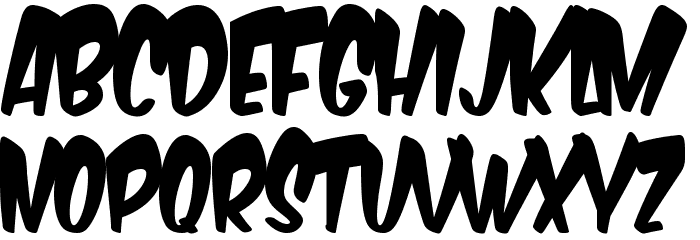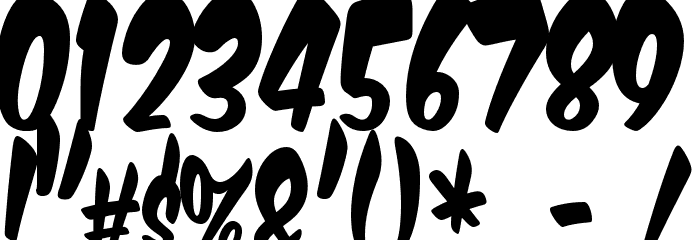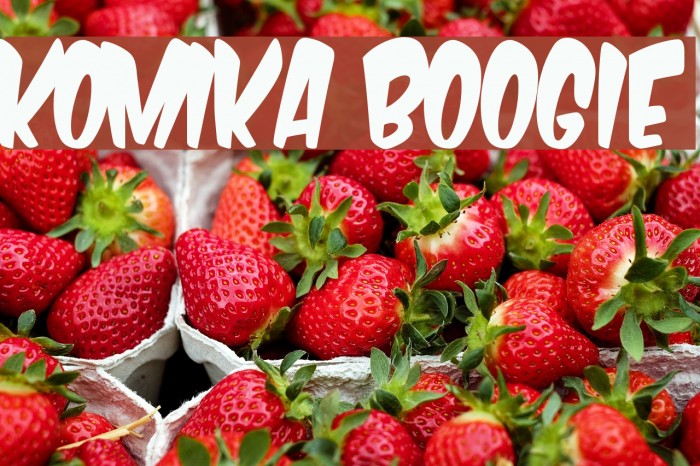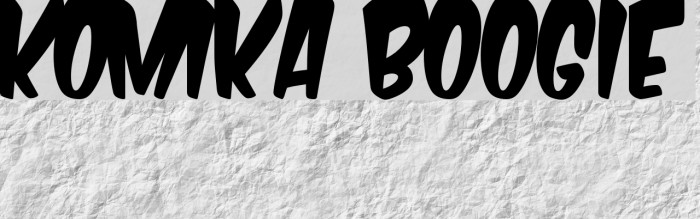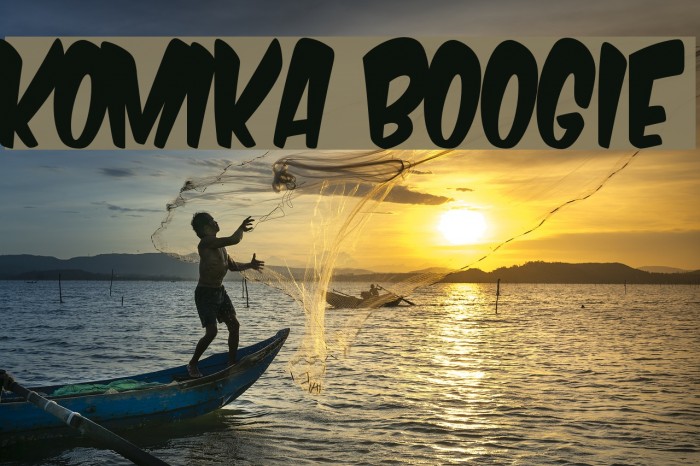
Komika Boogie Font
This bold and playful font features thick, rounded strokes with a hand-drawn aesthetic. The letters are slightly slanted, giving a sense of movement and energy. The uppercase and lowercase characters maintain a consistent style, with exaggerated curves and a casual feel. The numbers are equally bold and dynamic, matching the overall style of the alphabet. Special characters are included, adding versatility to the font. Its informal and lively appearance makes it suitable for projects that require a fun and engaging look.
A bold, playful font with a hand-drawn, energetic style.
- Proposed Projects: Ideal for comic books, children's books, playful branding, and event posters.
- Overall Style: Playful, Energetic, Casual